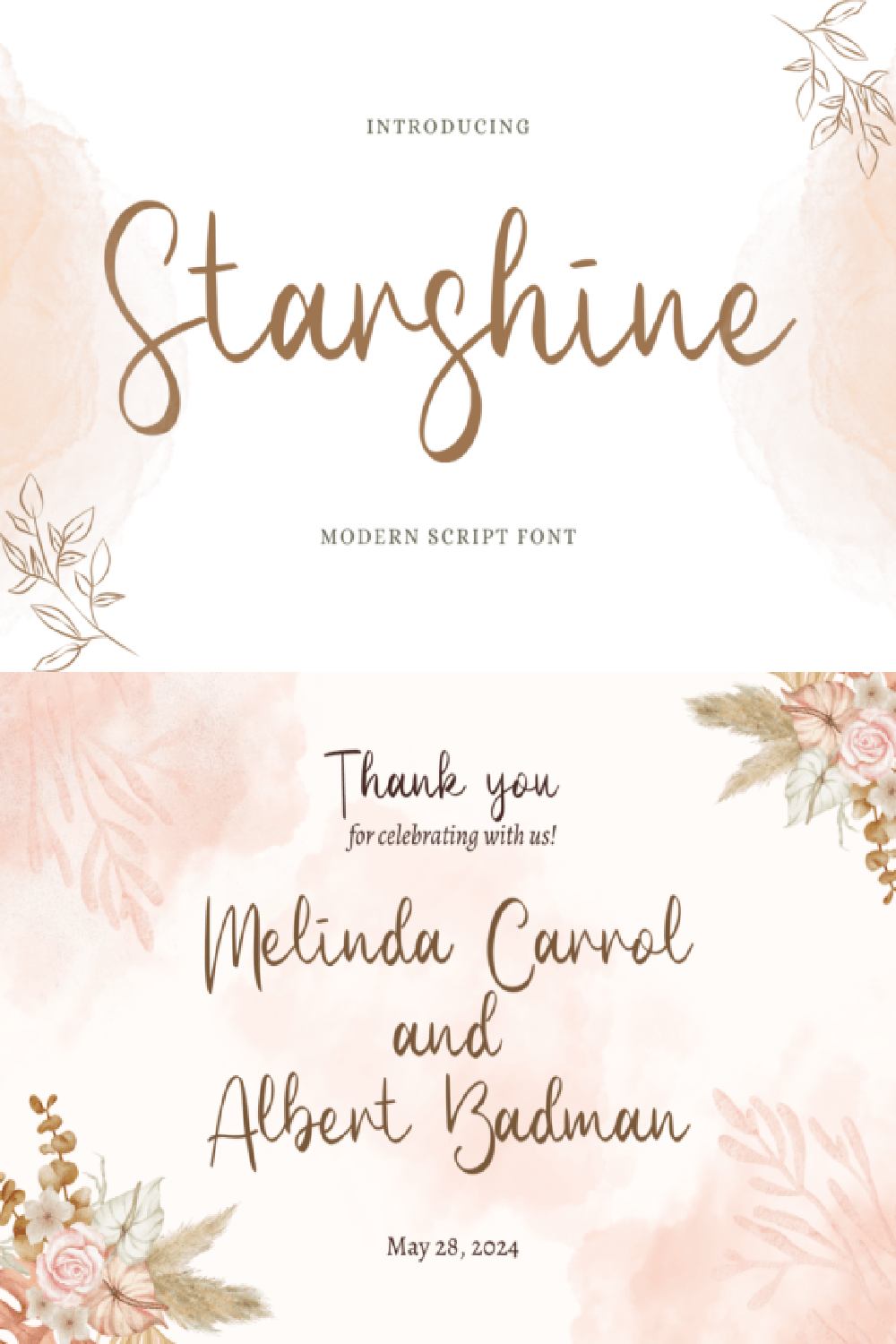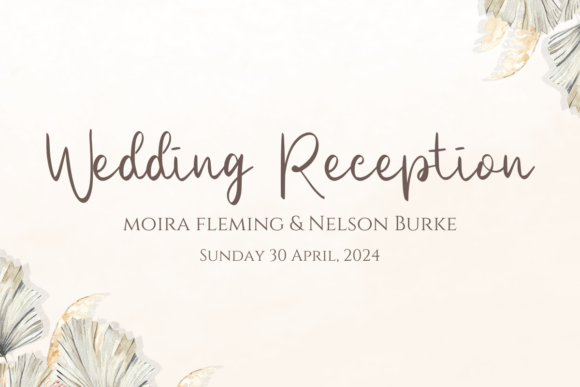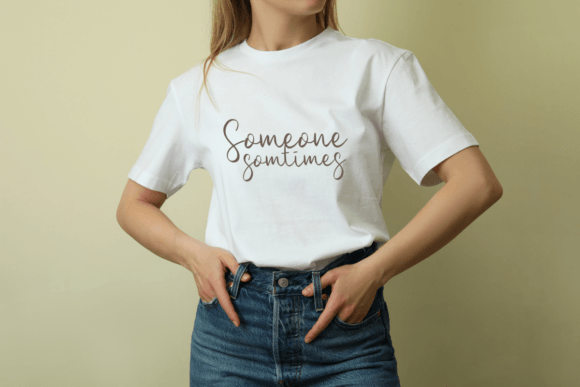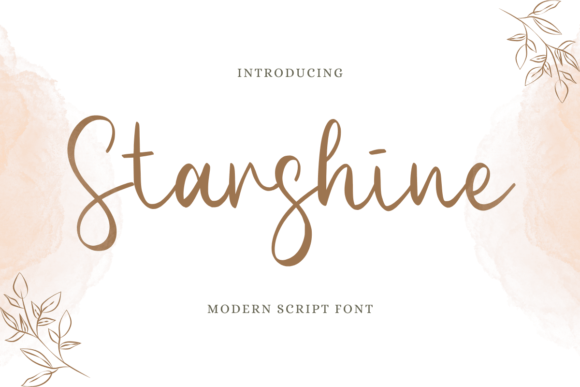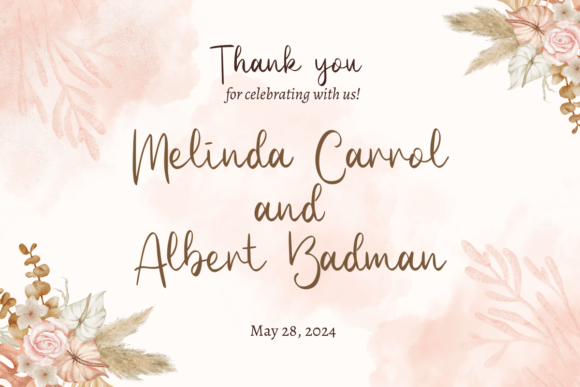
Starshine Font: Elegant Handwritten Script for Wedding & DIY Projects
About the Starshine Font
Make a bold statement with Starshine Font, a powerful and memorable font. Starshine is a fancy handwritten script font. which are suitable for perfecting your creative projects such as stickers, notes, planners, SVG quotes, t-shirts, wall art, Cricut, craft, embroidery, posters, cards, and many other ideas